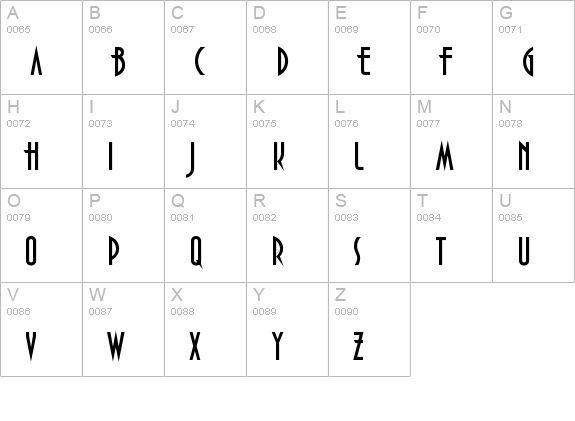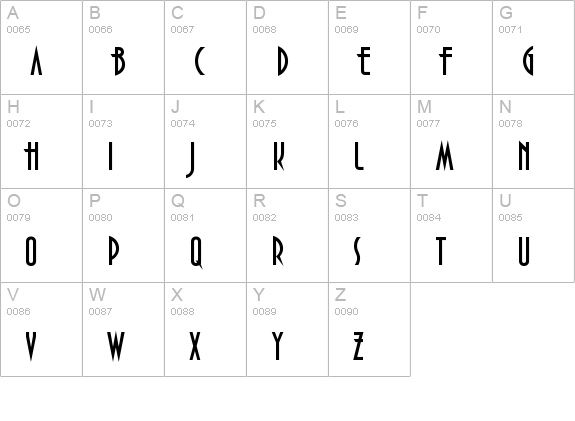
DecoTech Font Details
DecoTech is a stunning and elegant font that effortlessly combines modern design with classic Art Deco elements. Its clean lines and sophisticated touches make it perfect for a wide range of design projects, from branding to editorial layouts. This versatile font features a unique blend of sharp edges and smooth curves, creating a sense of balance and harmony that is sure to capture attention. Whether used for headlines, logos, or body text, DecoTech brings a touch of timeless style to any design. And the best part? DecoTech is completely free to download at FontsMarket.com. So you can add this exquisite font to your collection without breaking the bank. Don't miss out on the opportunity to elevate your designs with the beauty and elegance of DecoTech. Download it now and let your creativity shine.